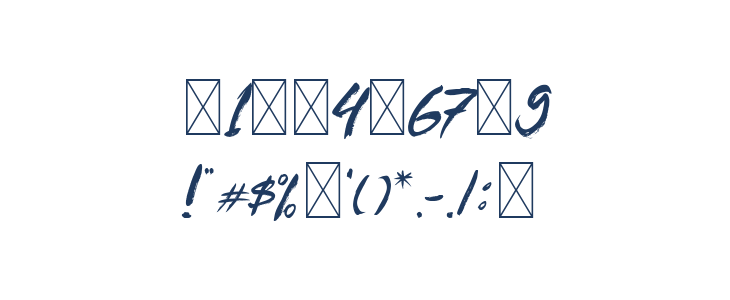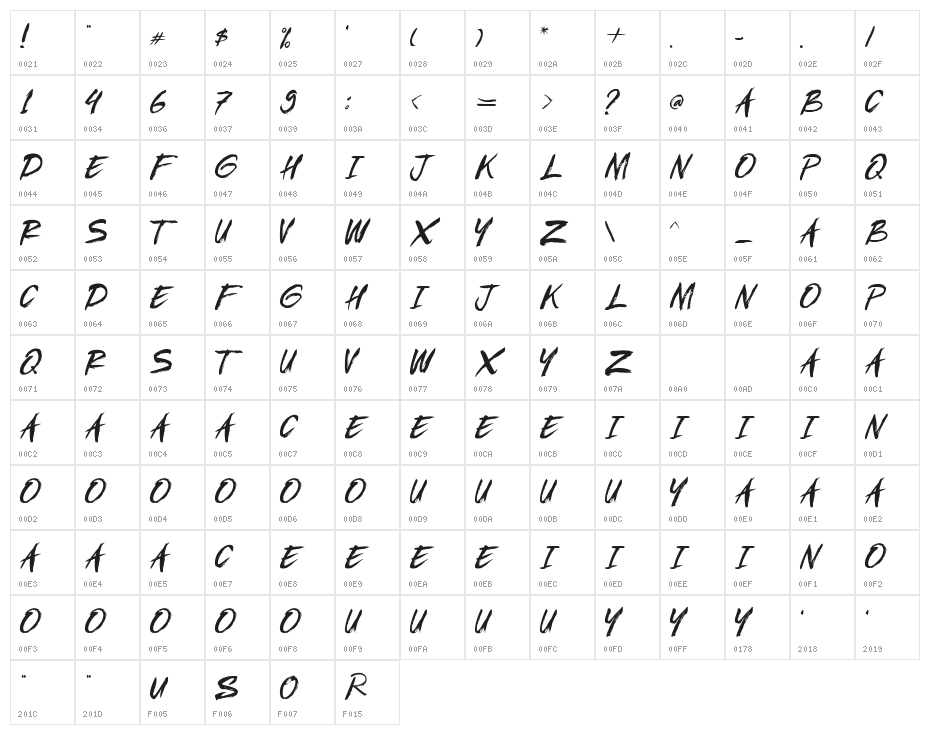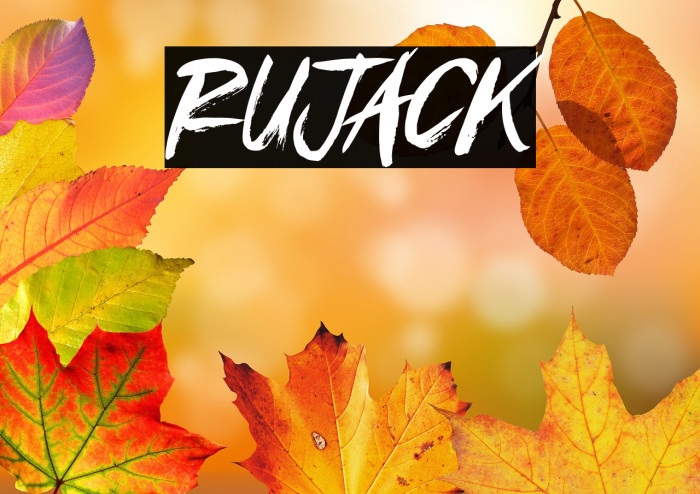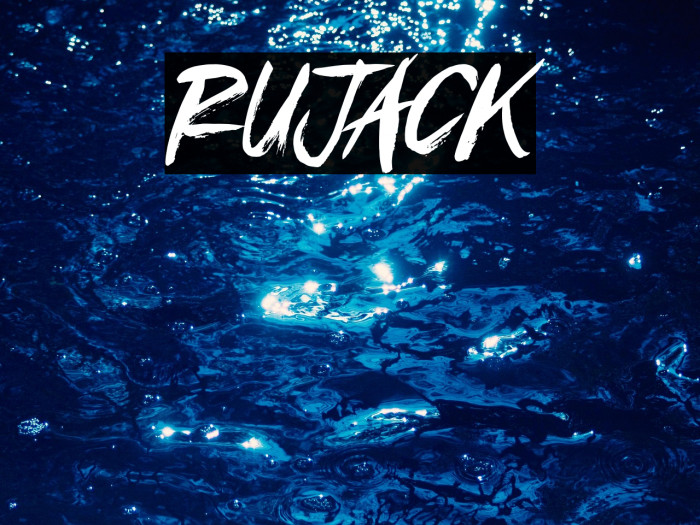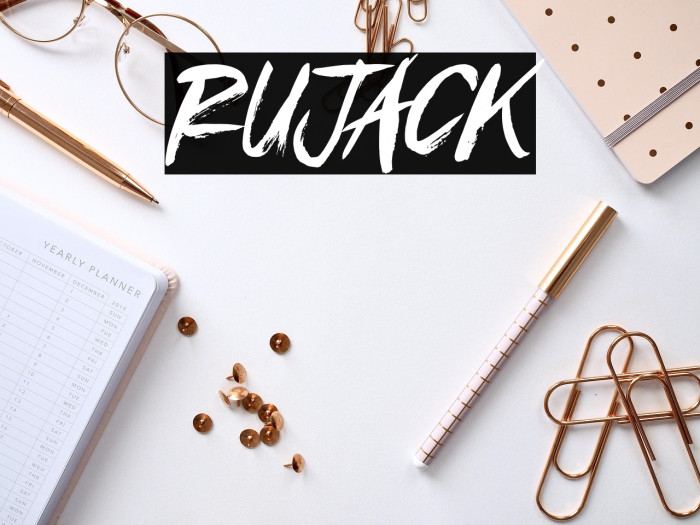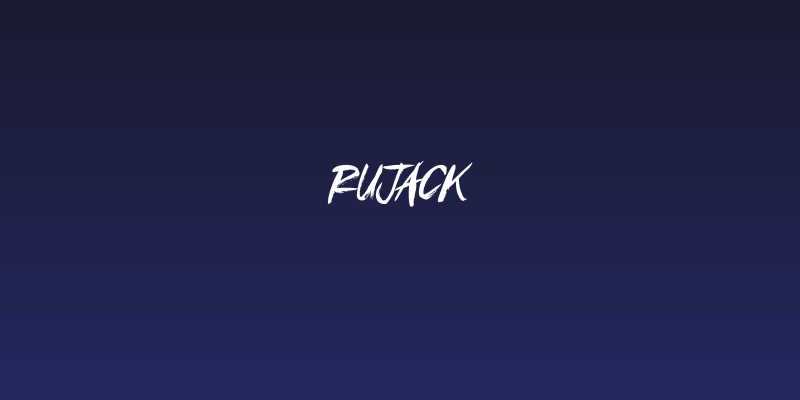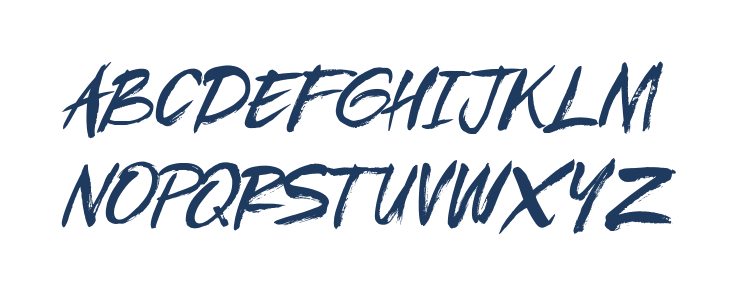
Rujack Font
Rujack Description
This font features a bold, expressive style with a brush-like texture that gives it a dynamic and energetic appearance. The strokes are uneven, adding a sense of movement and spontaneity. The uppercase and lowercase letters maintain a consistent style, with sharp angles and a slightly slanted orientation, enhancing its informal and artistic feel. The numbers and special characters follow the same design principles, ensuring a cohesive look across all elements. This font is ideal for projects that require a strong visual impact and a touch of creativity.
| Proposed Projects | Ideal for posters, branding, album covers, and creative advertising. |